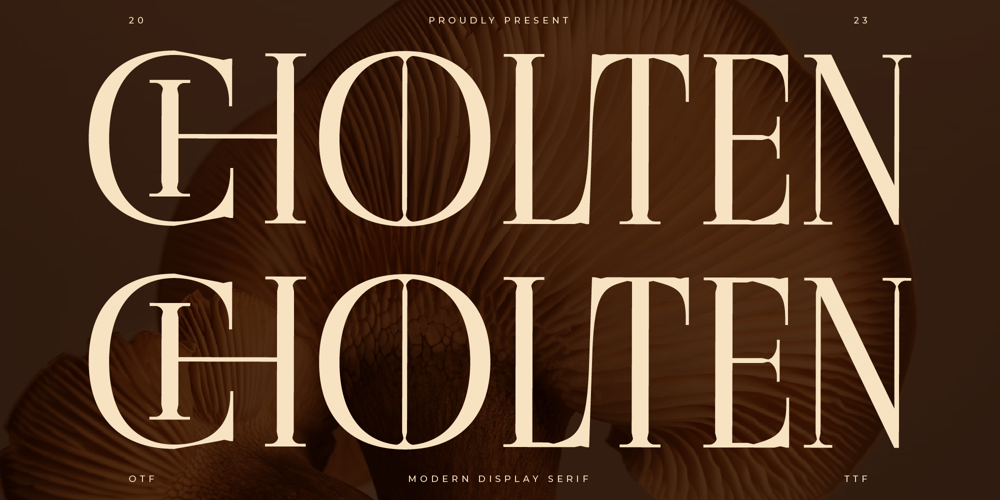
Cholten Font Family was designed by Heru Utama Putra and published by Letterena Studios. Cholten contains 2 styles and family package options. Cholten is a modern and classic serif tyoeface that has its own unique style and modern look. This typeface is perfect for an elegant & luxury logo, book or movie title design, fashion brand, magazine, clothes, lettering, quotes, and so much more.